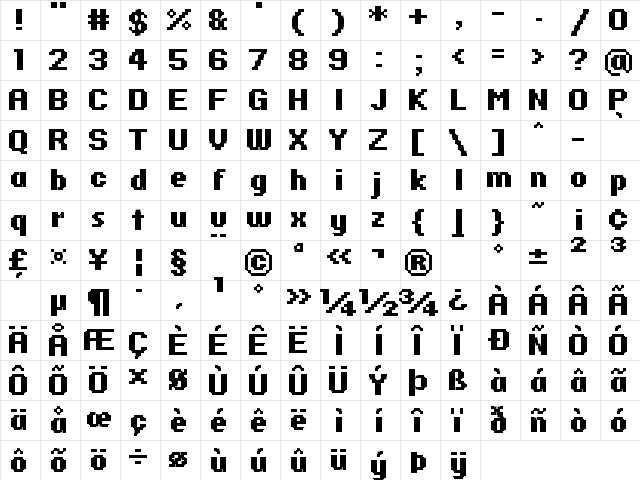
PF Ronda Seven Bold Free Font
PF Ronda Seven Bold
Foundry: Yusuke Kamiyamane
Design Context for PF Ronda Seven
PF Ronda Seven is a composed and adaptable typeface that performs quietly and consistently across a wide range of design contexts. Its bold stroke weight gives it real presence on the page.
Who designed the PF Ronda Seven Bold font?